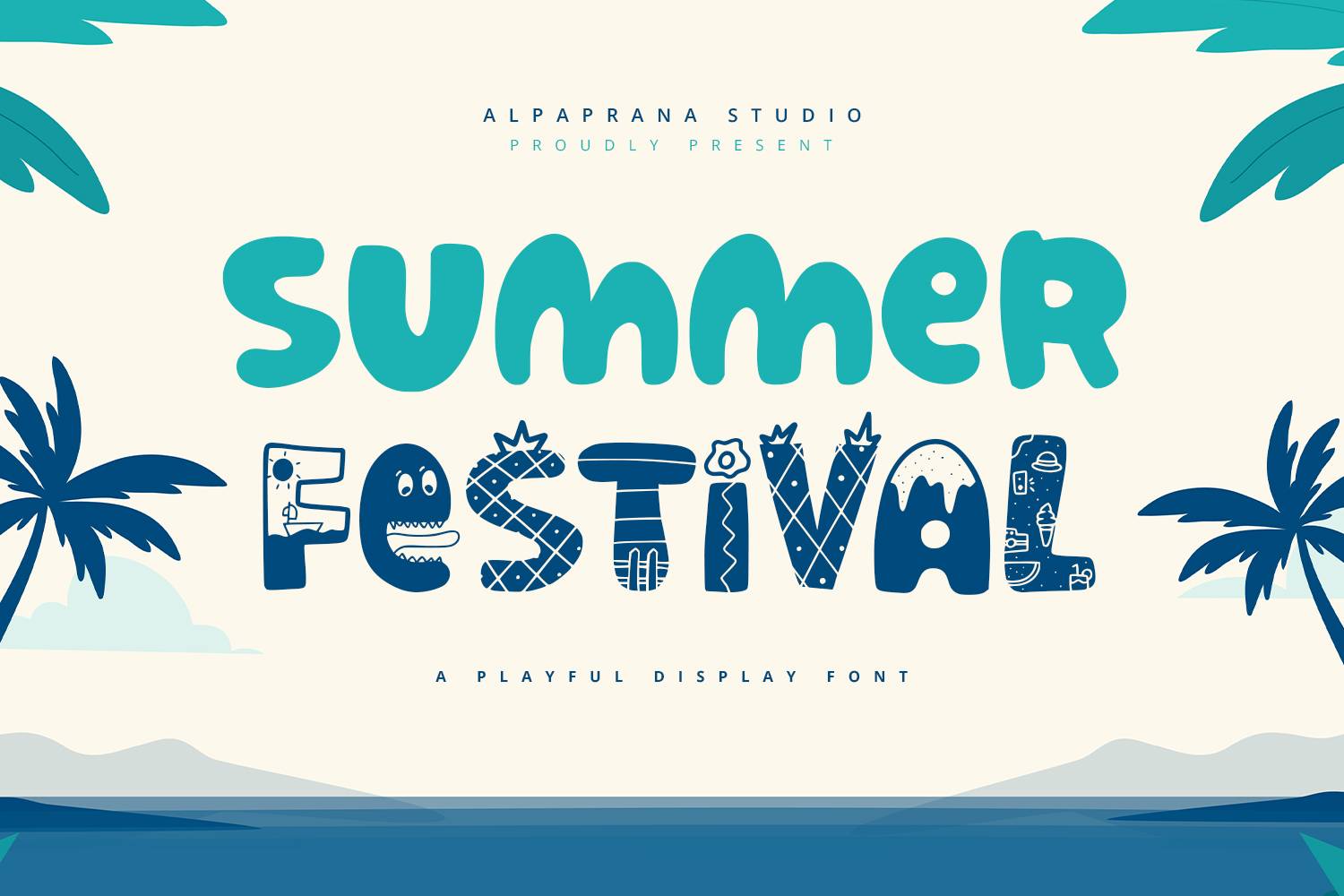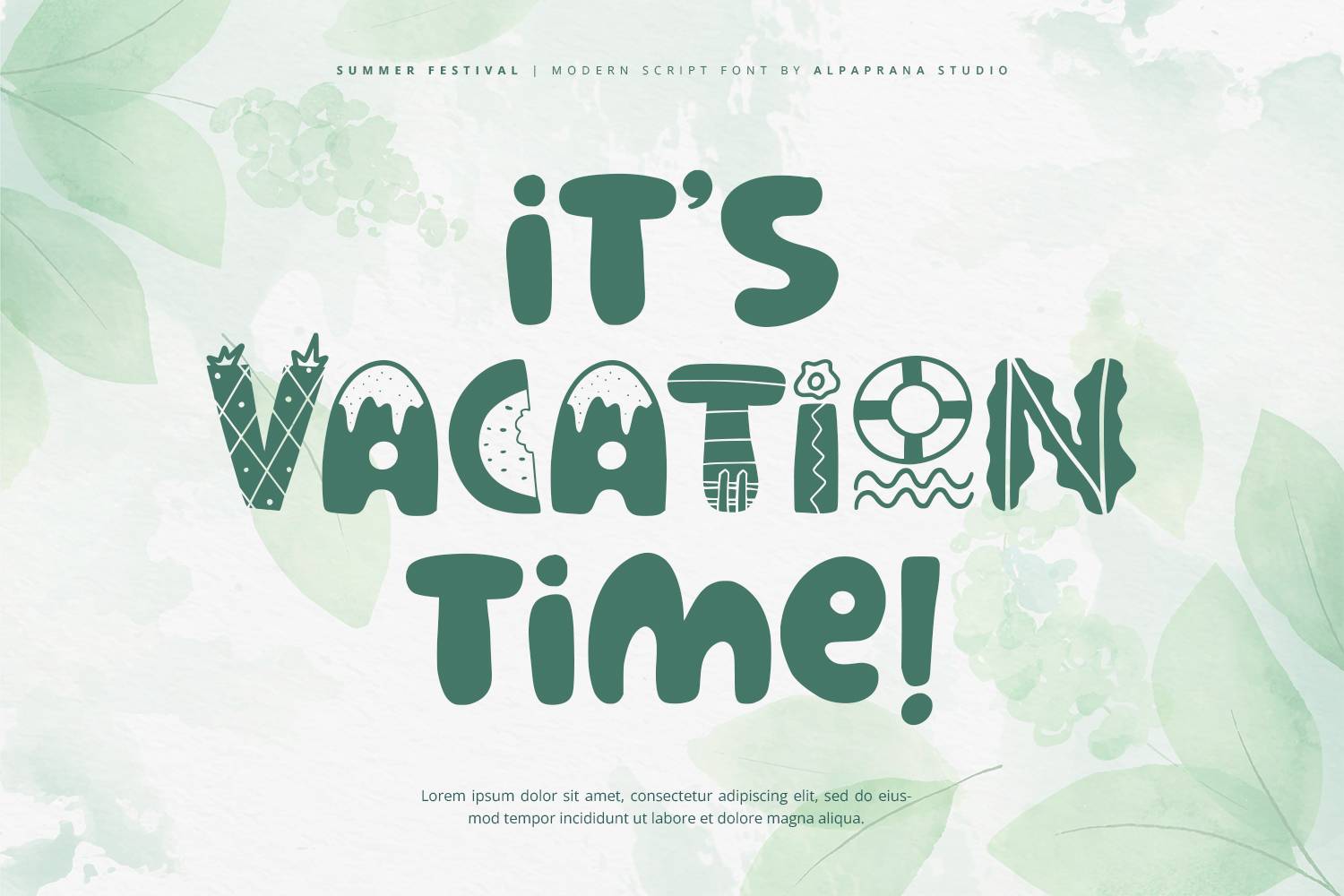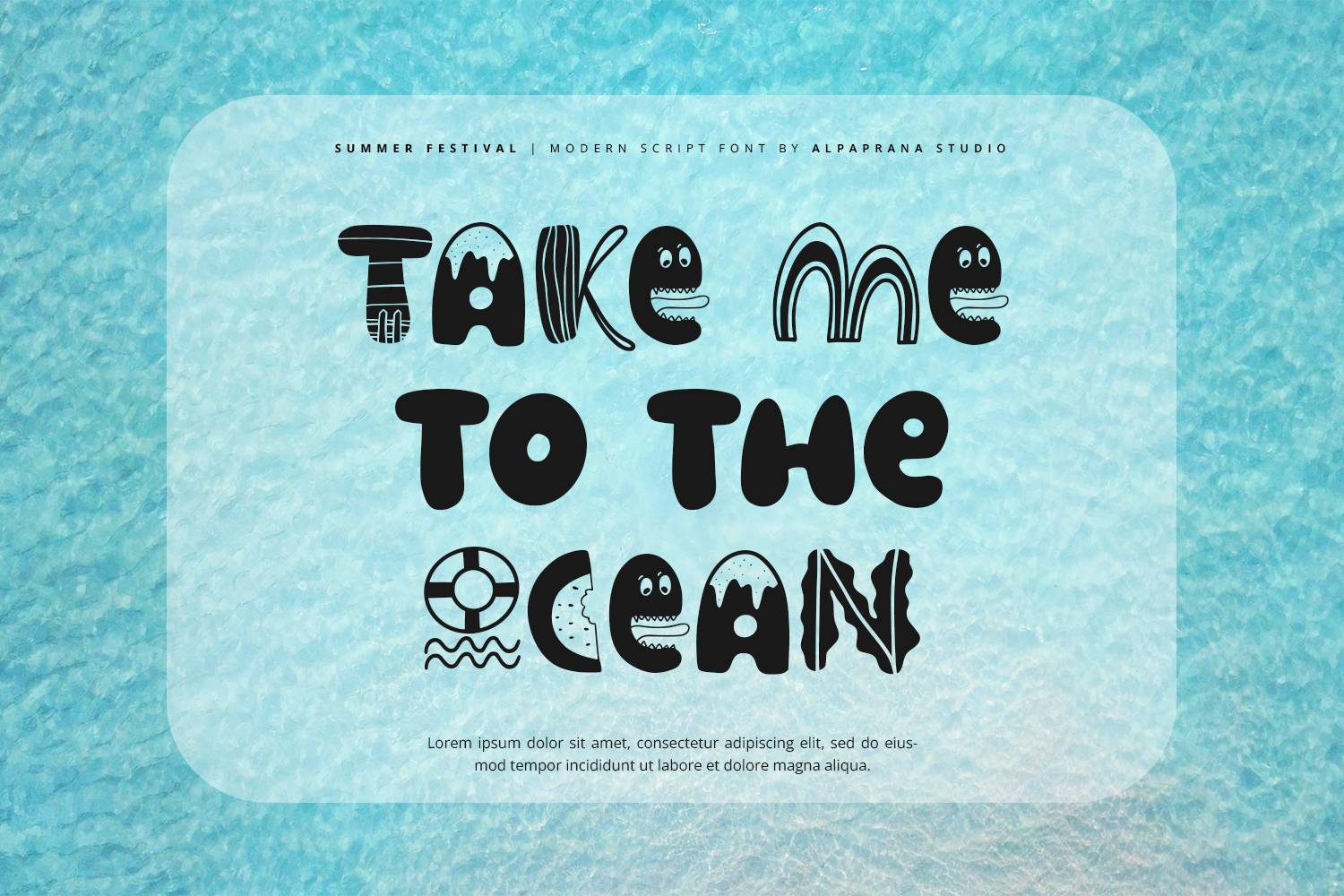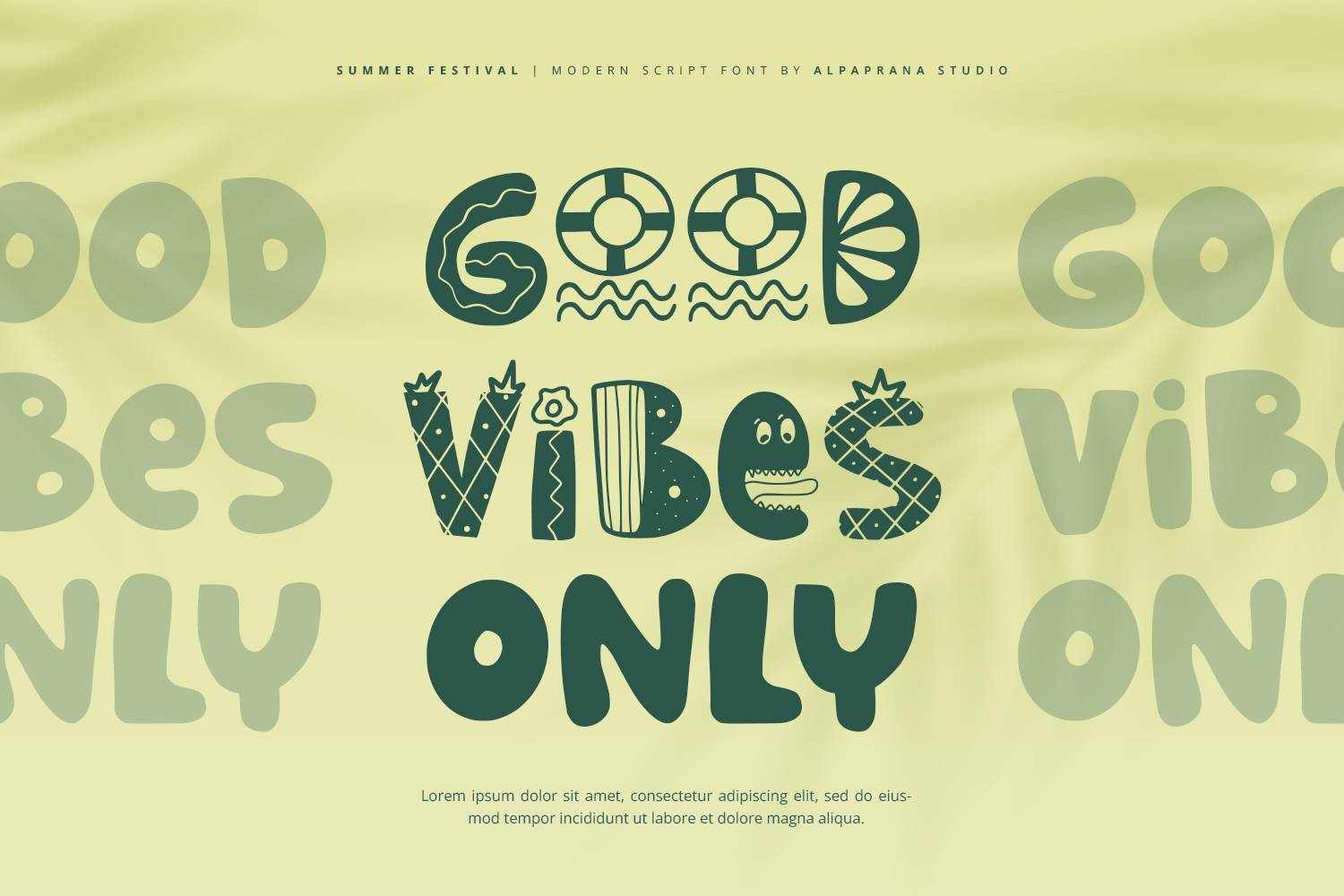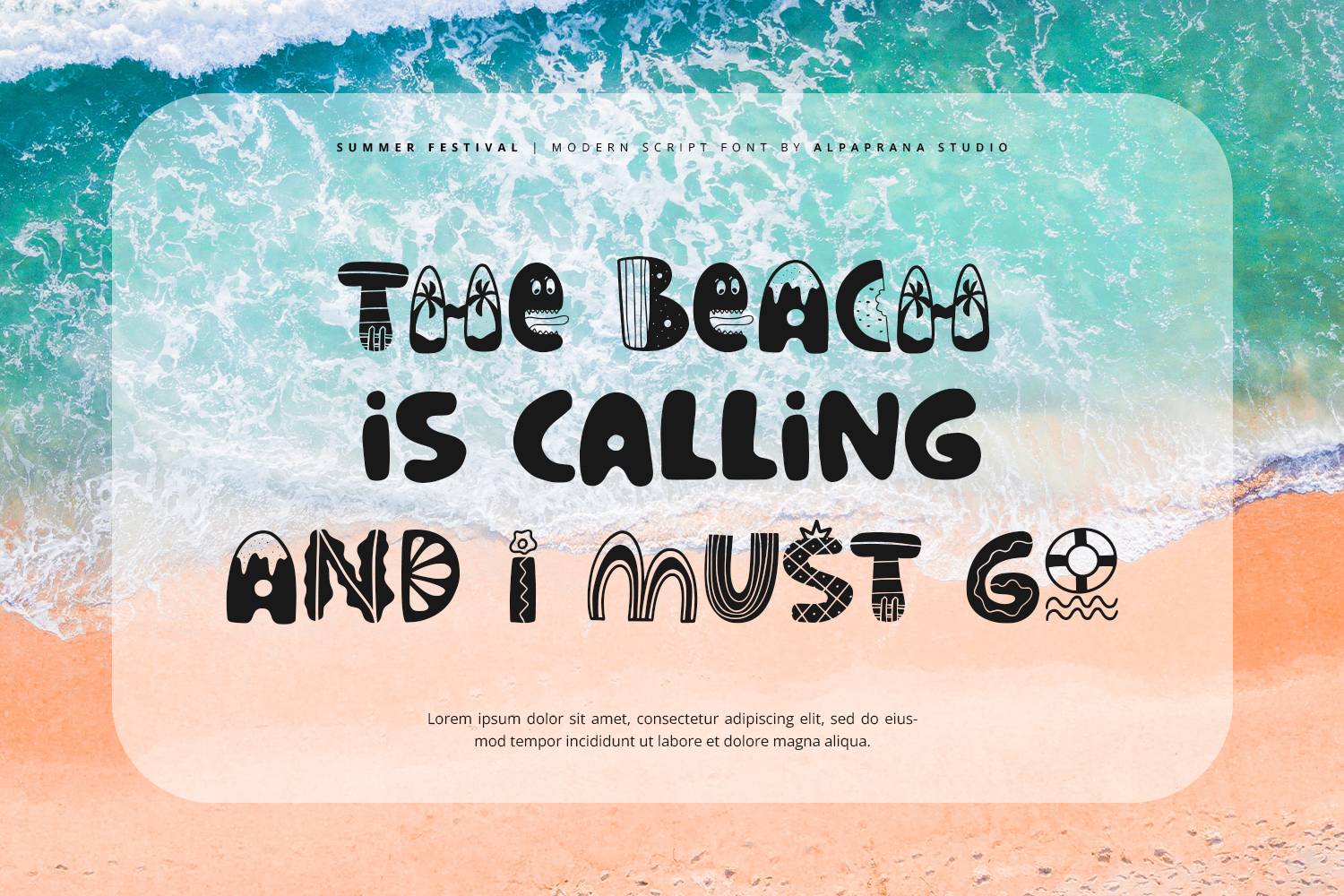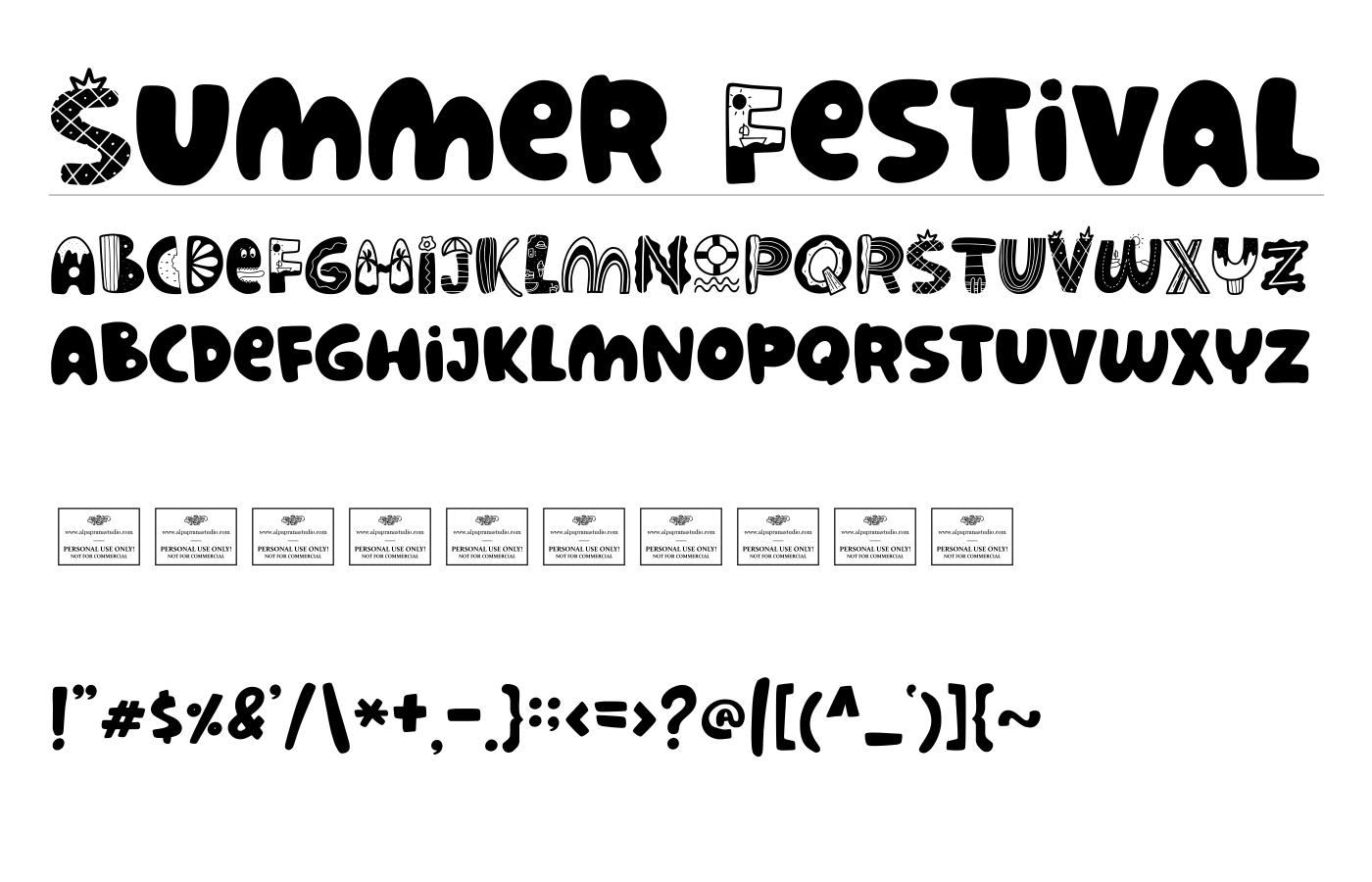
Summer Festival Font is a playful, bold sans serif with a chunky and rounded design that feels warm and fun. Its irregular, hand-drawn letterforms with whimsical decorative details evoke a casual, joyful vibe, making it ideal for cheerful, youthful branding and festive event promotions. This font works wonderfully for headlines, posters, and invitations where a lively, friendly atmosphere is desired.
Summer Festival Font